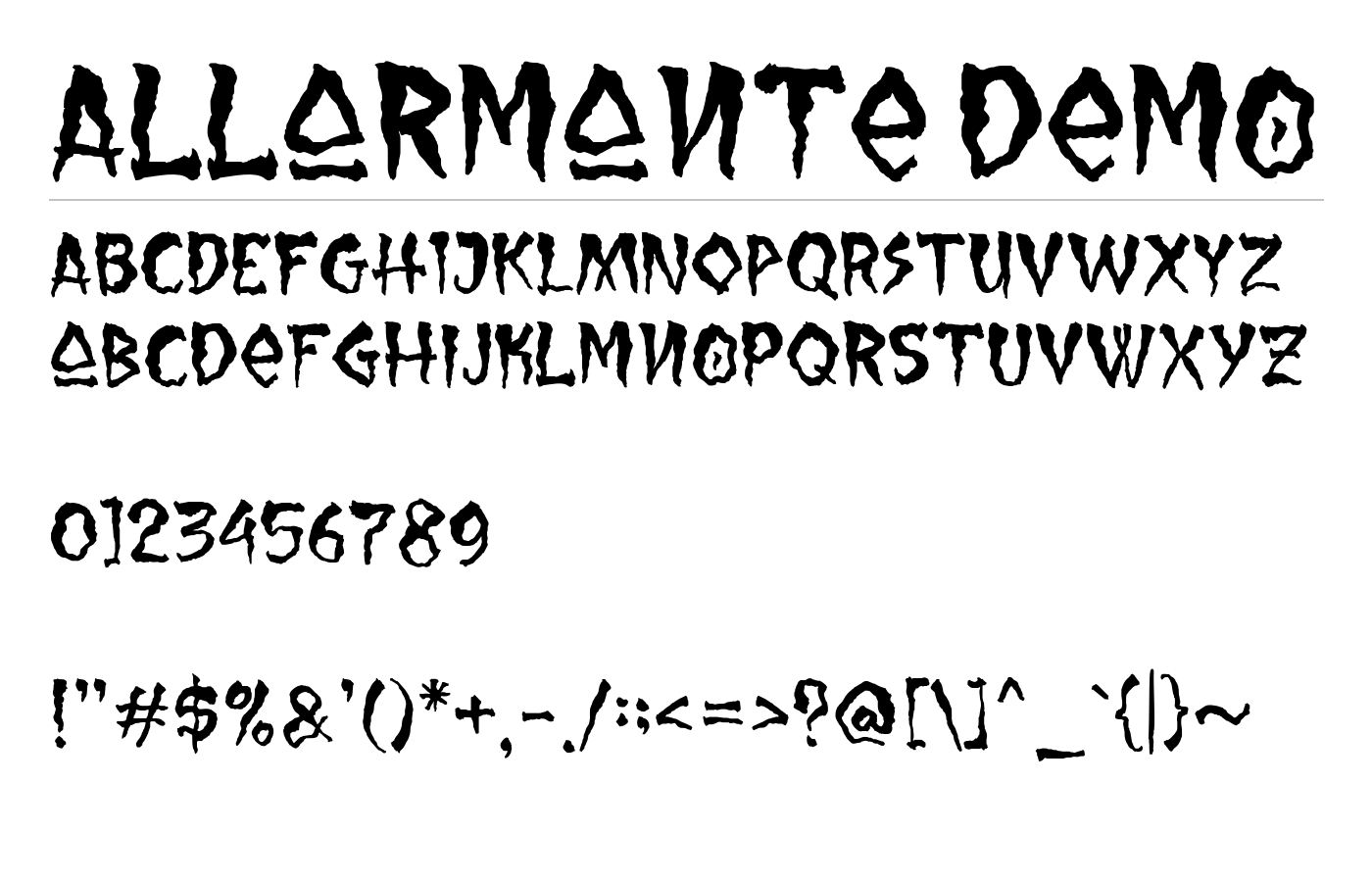
Allarmante Demo is a distinctive, textured display font with a rough, hand-drawn feel that adds a sense of edginess and creativity. Its irregular shapes and bold, uneven strokes make it perfect for eye-catching headlines, posters, or artistic branding where a unique, unconventional style is desired. This font works well for projects aiming to convey a raw, playful, and adventurous vibe.
Allarmante demo Font
About Allarmante demo Font